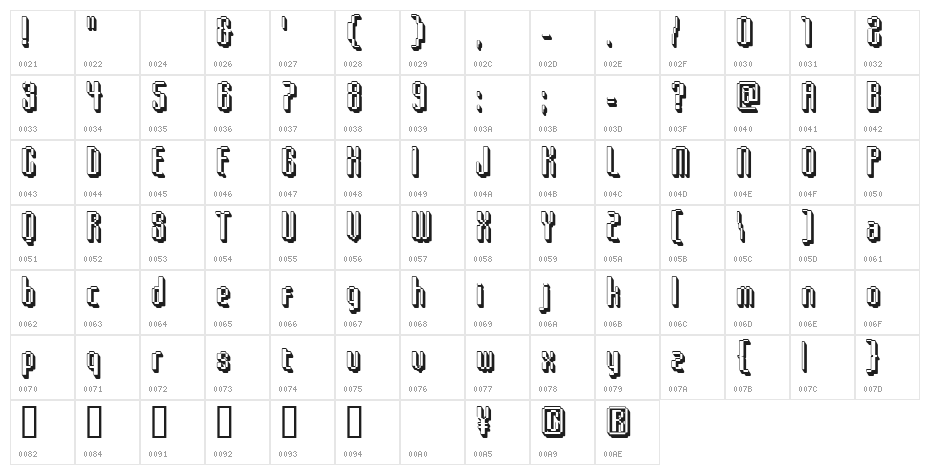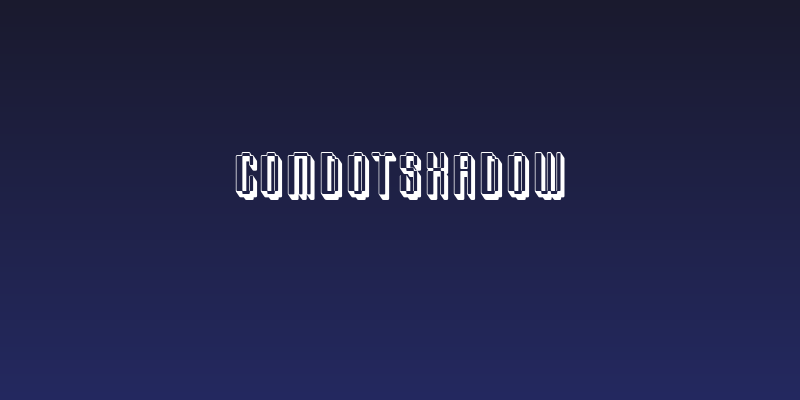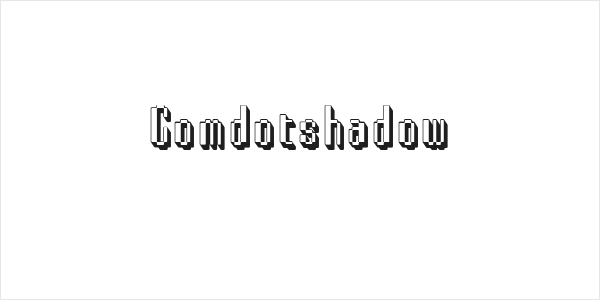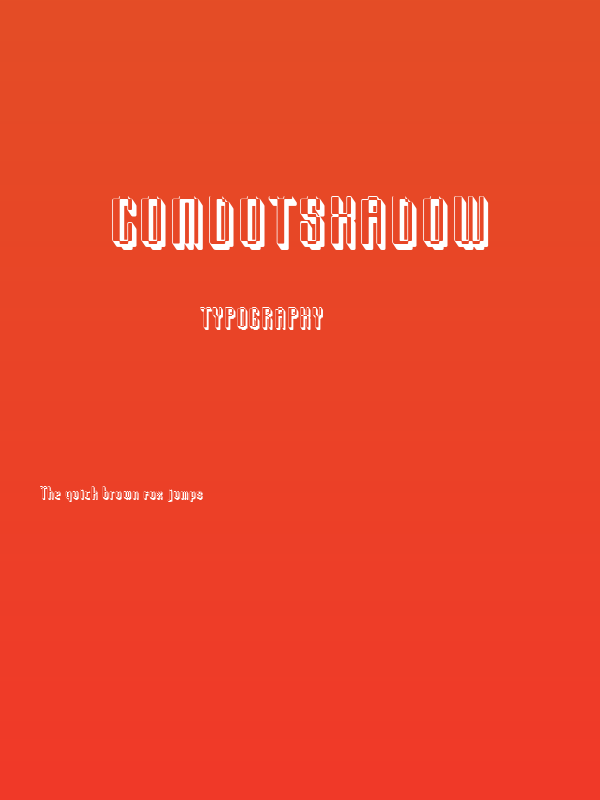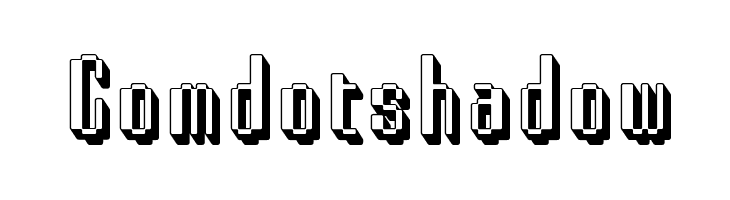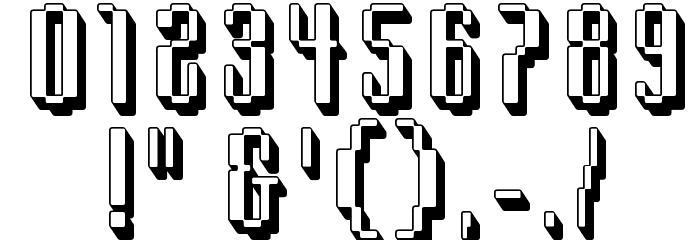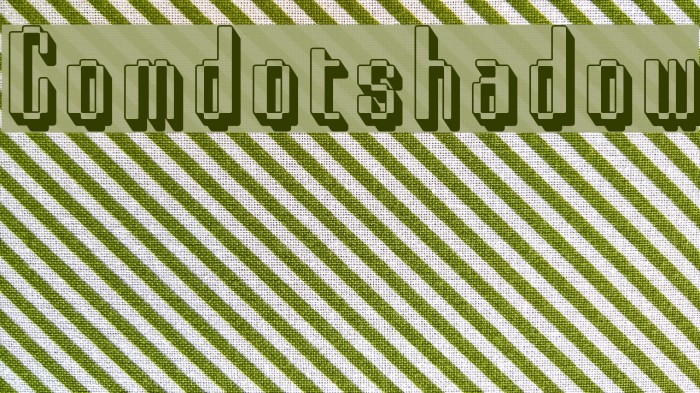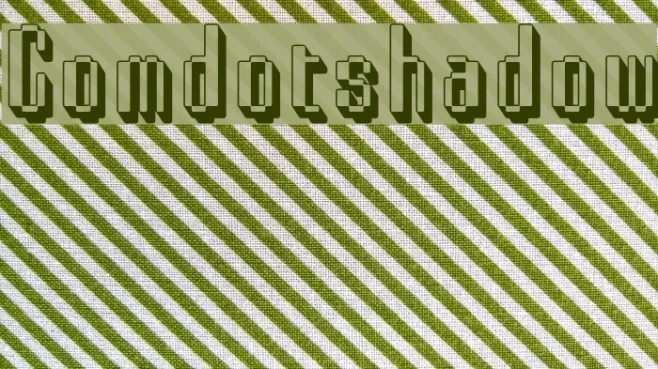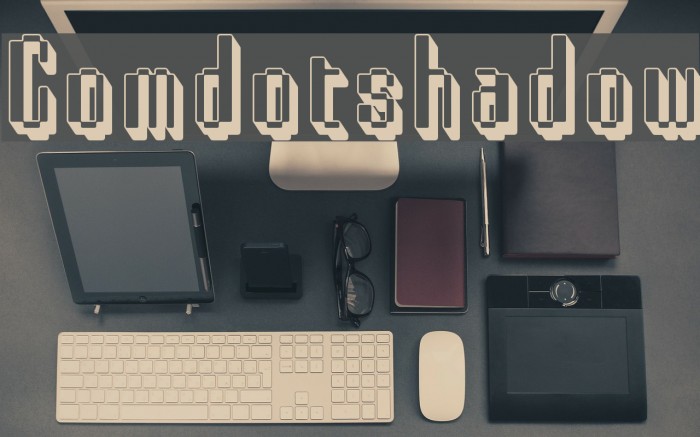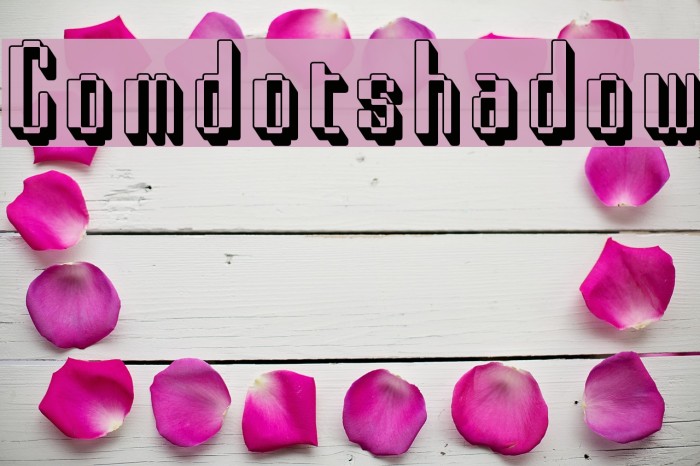
Comdotshadow Font
Comdotshadow Description
This font features a bold, three-dimensional design with a distinct shadow effect that gives it a striking, standout appearance. The characters are blocky and geometric, with clean lines and sharp angles, creating a modern and edgy look. The shadow effect adds depth and dimension, making the characters appear as if they are lifted off the page. This font is highly decorative and eye-catching, suitable for designs that require a strong visual impact. The uppercase and lowercase letters maintain a consistent style, and the numerals and special characters are designed to match the overall aesthetic.
| Proposed Projects | Ideal for poster designs, video game graphics, branding projects, and any creative work that requires a bold, impactful typeface. |